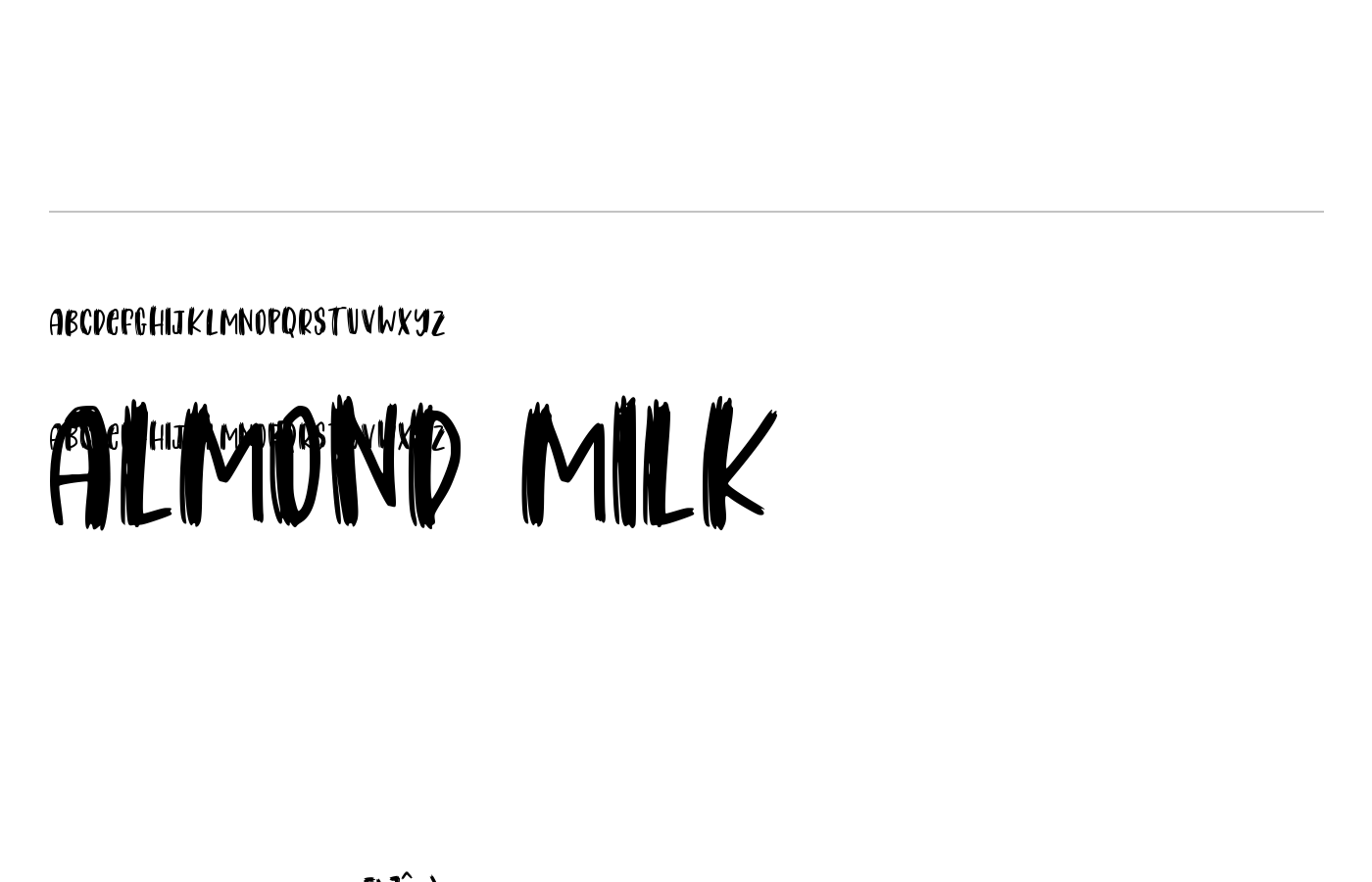
Almond Milk is a bold, condensed sans serif font with a playful, hand-drawn feel created by its uneven, brush-like strokes and irregular edges. Its tall, narrow letterforms and high contrast strokes give it a dynamic, energetic personality, making it perfect for eye-catching headlines, branding, and creative projects that want to convey a casual, artistic vibe. This font works well for modern, trendy designs aiming to stand out with a unique and informal style.
Almond Milk Font
About Almond Milk Font